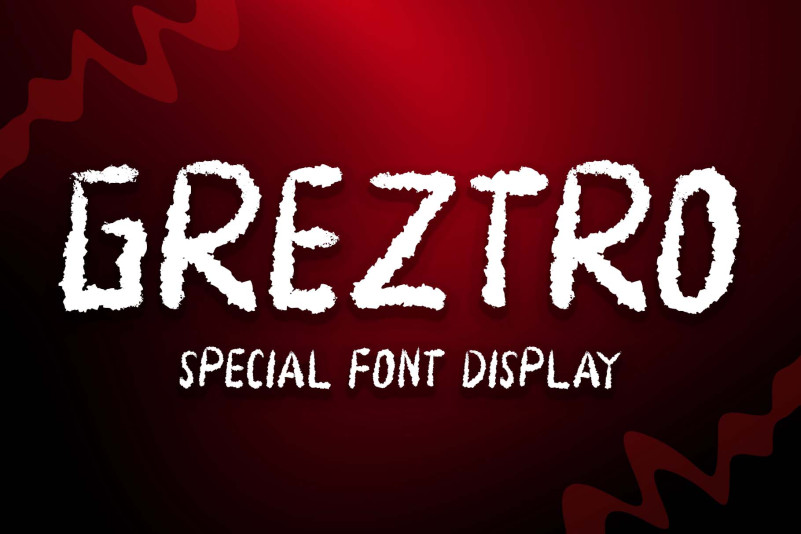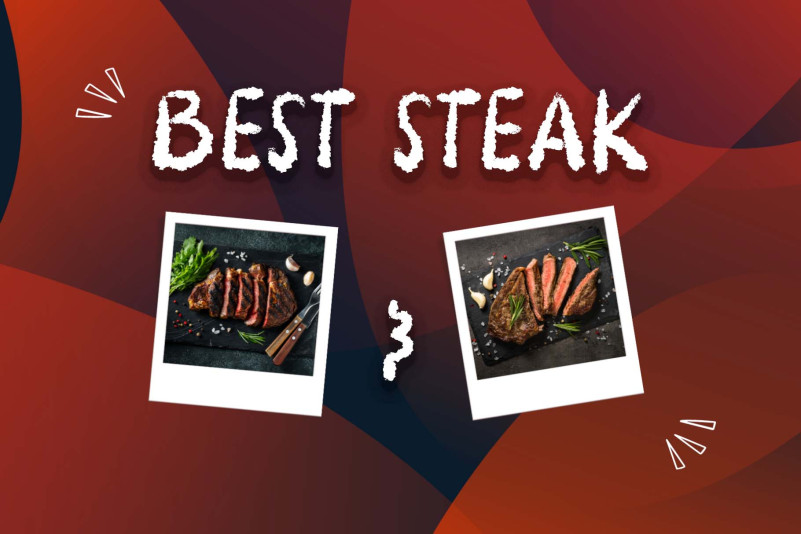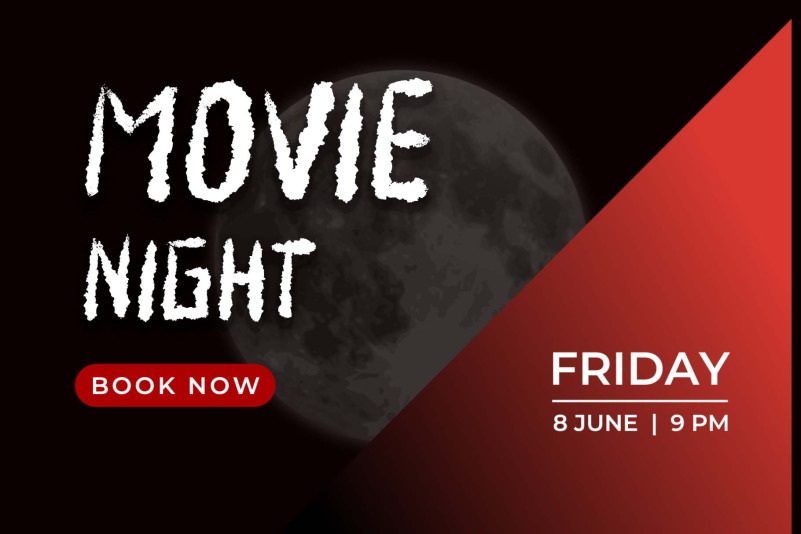
Greztro Font
Greztro Font is a quirky and fun handwritten display font with an irregular baseline. Add it to your crafty ideas and enjoy the results!